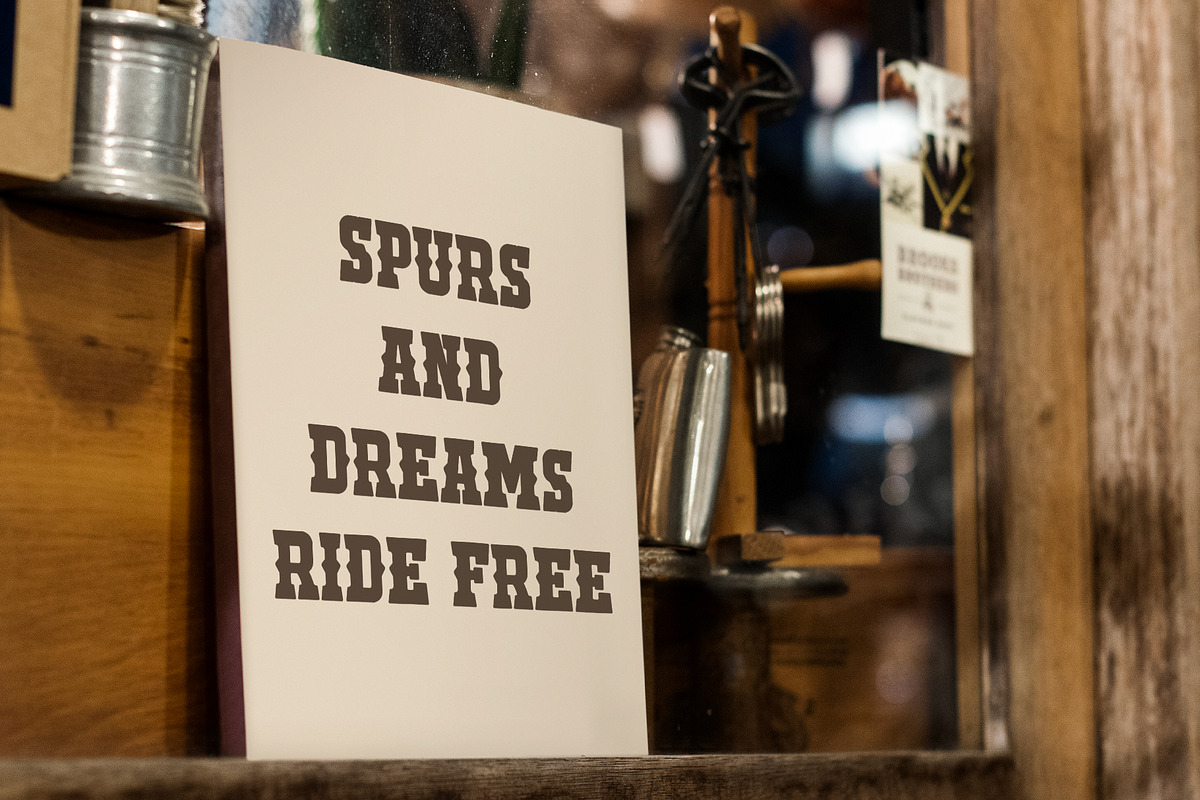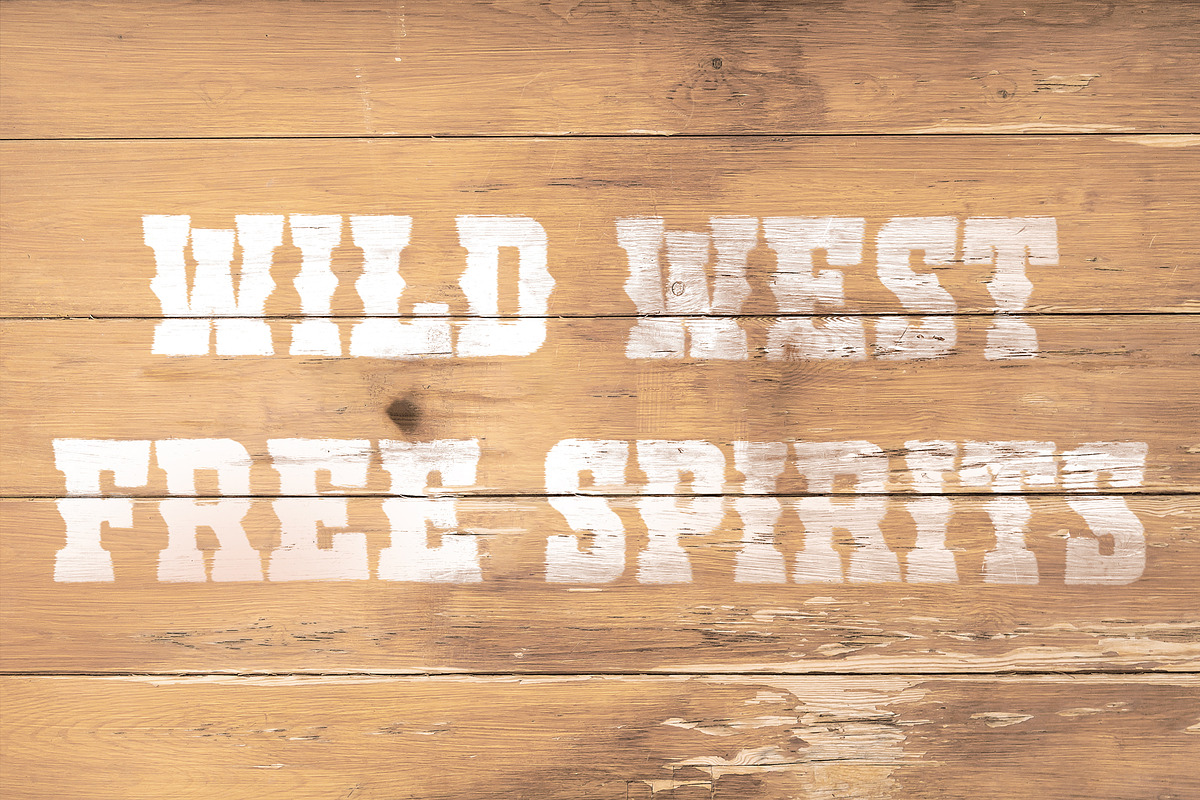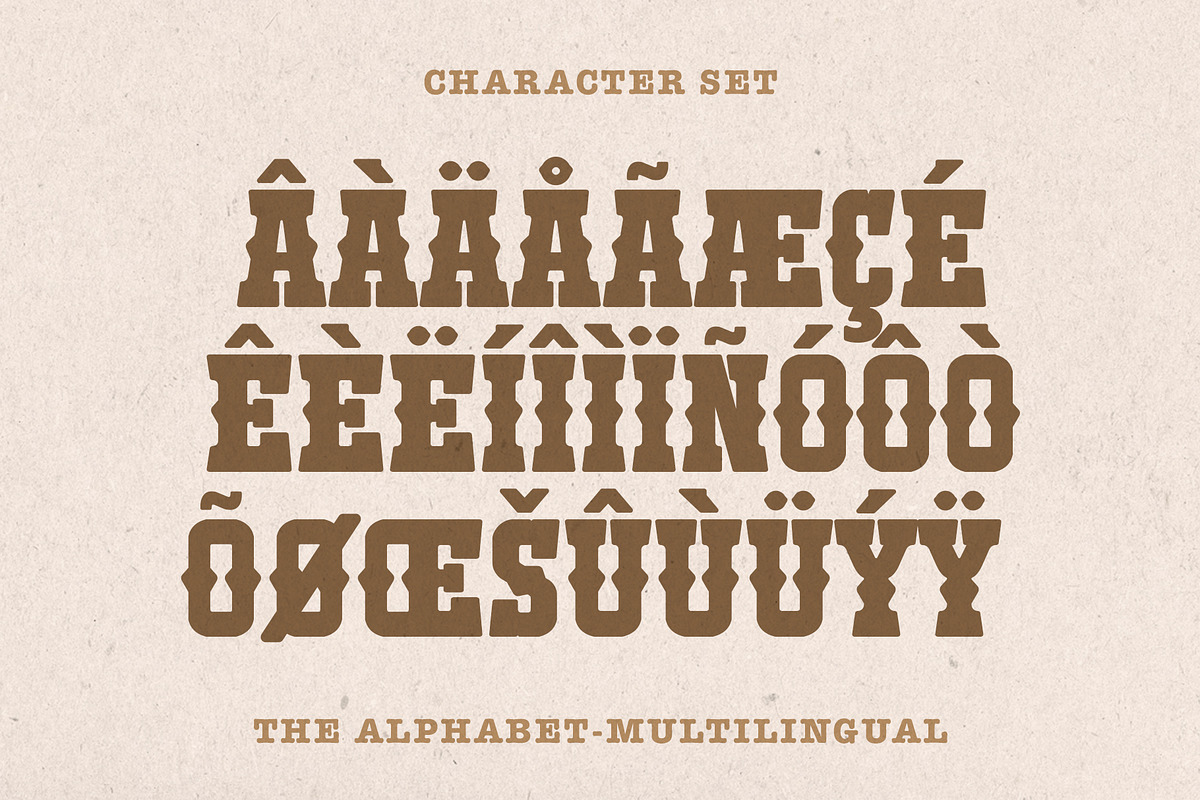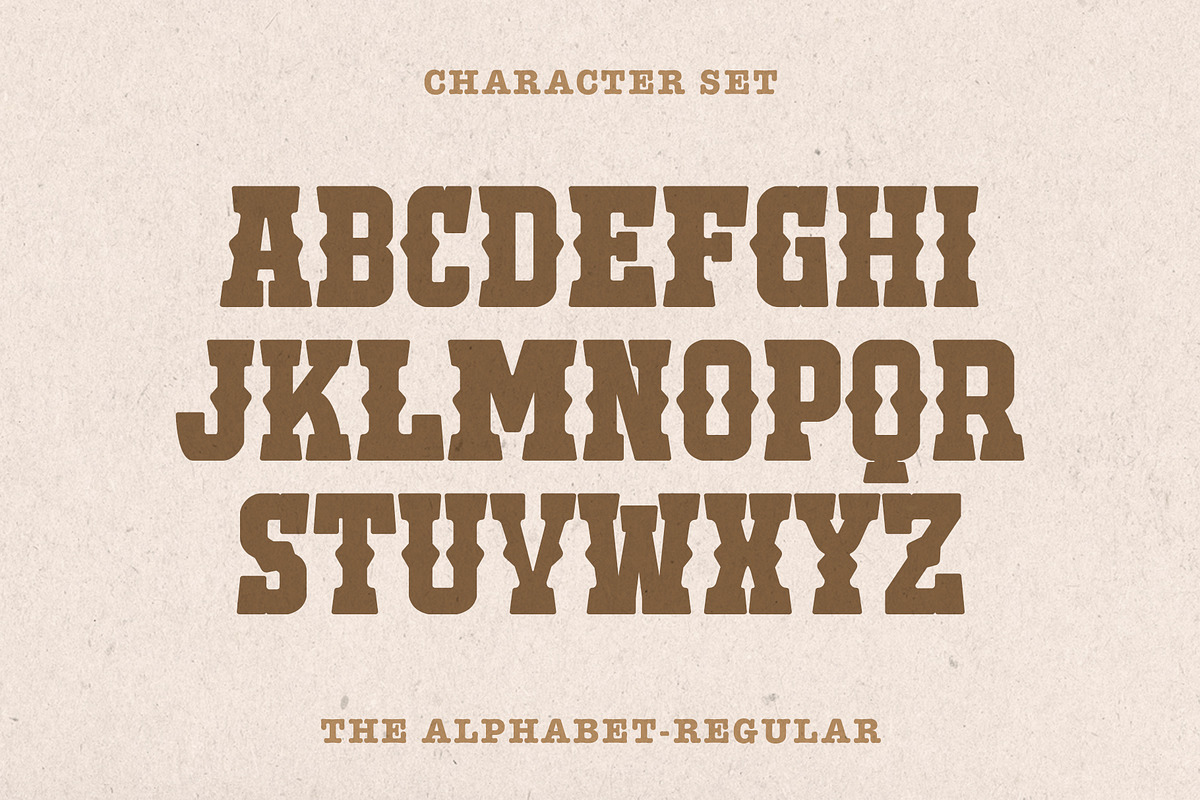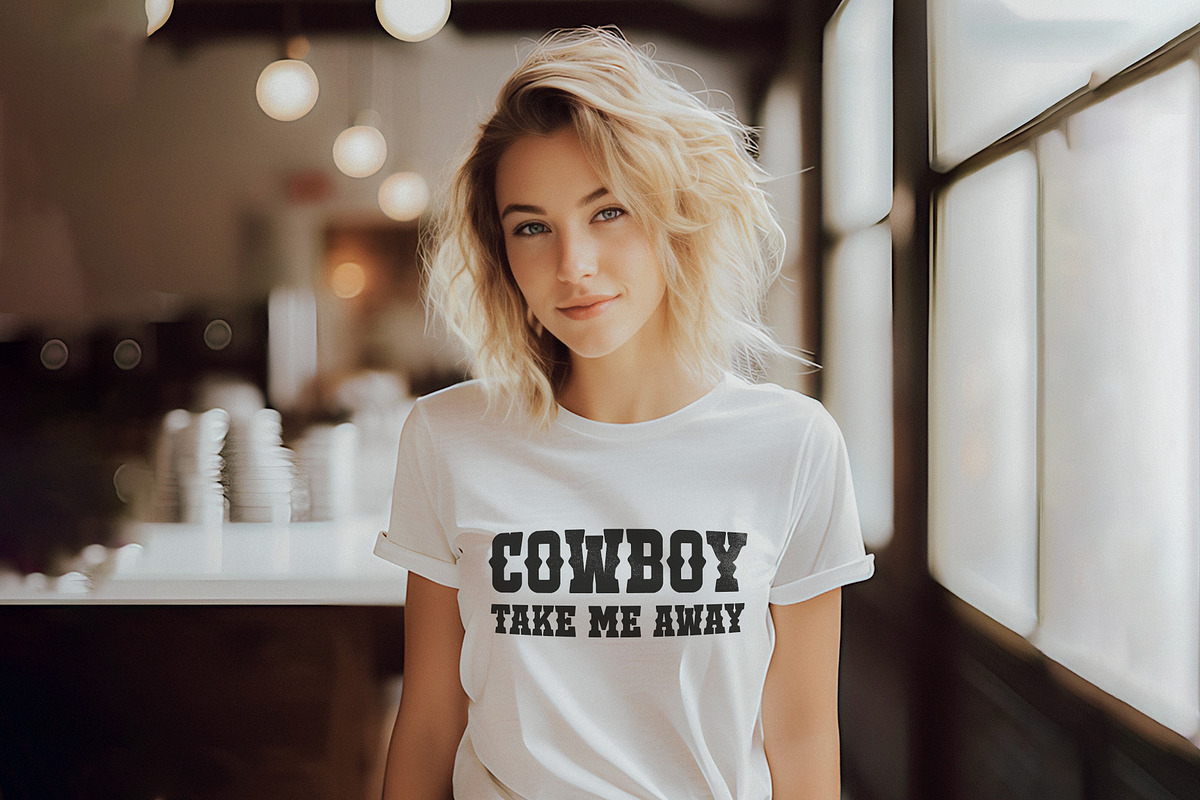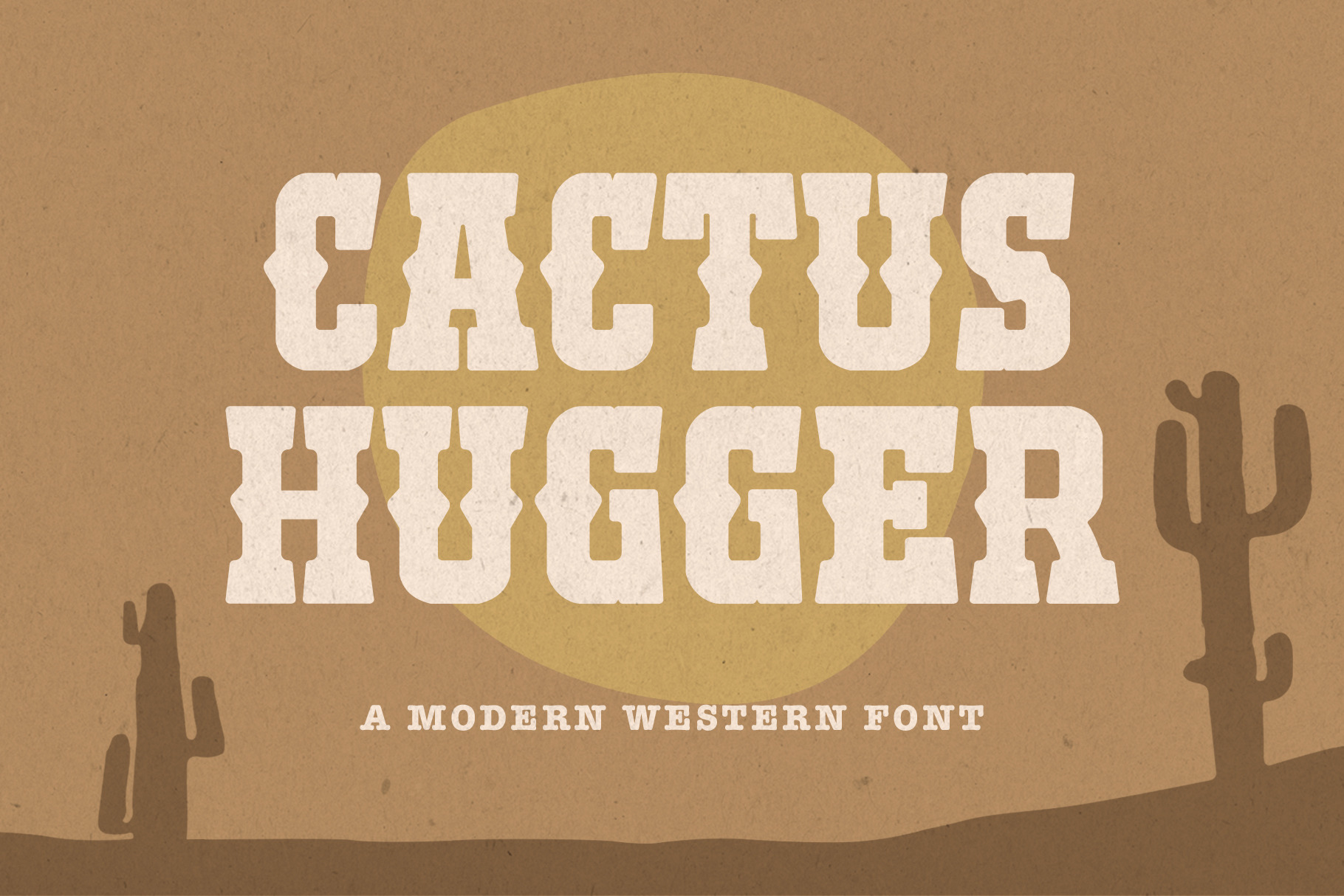
Cactus Hugger - Western Font
Cactus Hugger is a captivating modern western font that effortlessly blends the rugged spirit of the Wild West with contemporary design aesthetics. Its sleek lines and sharp angles convey a sense of boldness, while subtle curves pay homage to traditional western motifs. The typeface strikes a harmonious balance between timeless charm and contemporary style, making it a versatile choice for various design projects. Whether used in headlines, logos, or creative layouts.